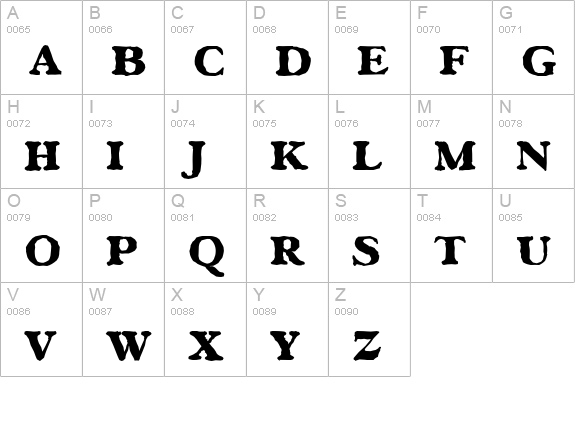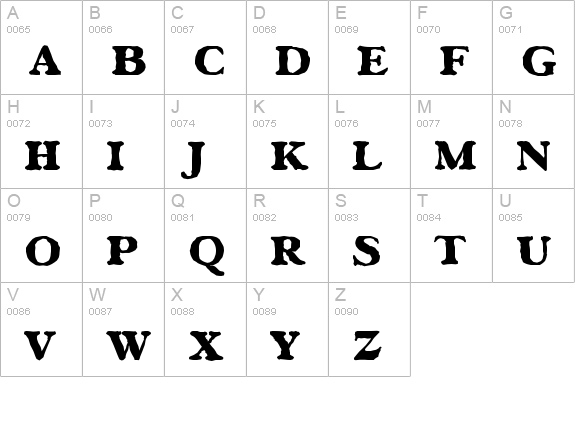
GascogneAntique-Heavy-Regular is a heavy, high-impact variant in the GascogneAntique typeface family \xE2\x80\x94 well suited to high-impact headlines, posters, and display advertising.
GascogneAntique-Heavy-Regular is a timeless and elegant font that exudes sophistication and class. Its bold and sturdy presence makes it perfect for headlines, titles, and other prominent text in your designs. The intricate details and vintage charm of this font add a touch of nostalgia and a sense of history to any project. What makes GascogneAntique-Heavy-Regular even more appealing is that it is available for free download at FontsMarket.com. This means you can easily access this high-quality font and incorporate it into your creative work without any cost. Whether you are working on a branding project, a poster design, or any other creative endeavor, GascogneAntique-Heavy-Regular is sure to elevate your work and make a lasting impression. Download it today and add a touch of old-world charm to your designs!